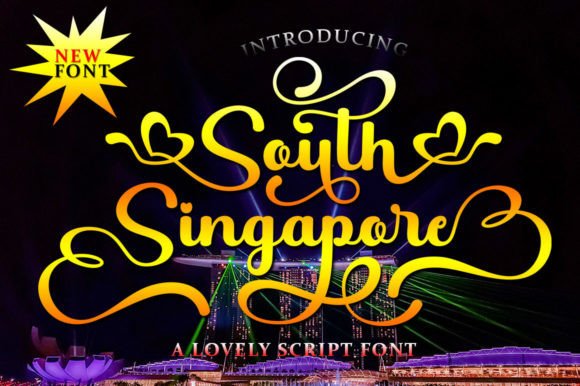
Embark on a typographic odyssey with South Singapore, a font of impeccable beauty and unparalleled grace. Its delicate strokes, reminiscent of a feather's caress, dance across the page with an elegance that captivates the senses. Crafted by the ingenious minds at NH Studio, this script font is a testament to the transformative power of creativity.
With South Singapore, your designs will transcend the ordinary, taking on an aura of sophistication and charm. Its meticulously crafted characters, perfectly balanced and harmonized, blend seamlessly into a wide spectrum of design aesthetics. Unleash your imagination and watch as this font breathes life into your most ambitious projects, transforming them into masterpieces that resonate with viewers.
The versatility of South Singapore is truly remarkable. Whether you're crafting wedding invitations that exude romance, designing logos that radiate timeless appeal, or creating social media posts that capture attention, this font rises to the occasion, delivering excellence in every application. Its innate ability to elevate ordinary text into captivating expressions makes it an indispensable tool for designers seeking to leave a lasting impression.
But South Singapore's allure extends beyond its aesthetic prowess. It is a font imbued with emotion, capable of evoking a symphony of feelings within the hearts of your audience. Its graceful curves and sweeping flourishes hint at a hidden narrative, inviting viewers to delve deeper into the story your designs tell.
Moreover, South Singapore is a font engineered for ease of use. Encoded with PUA, this font grants you effortless access to its full repertoire of glyphs and swashes. This user-friendly feature ensures that your creative vision remains unhindered, allowing you to seamlessly integrate South Singapore's charm into your designs.
Experience the enchanting world of South Singapore, a font that transcends the boundaries of typography, transforming your designs into works of art. Its delicate beauty, remarkable versatility, and emotional depth make it the perfect choice for any creative endeavor. Embrace the power of South Singapore and witness the transformation of your designs into captivating expressions of artistry.